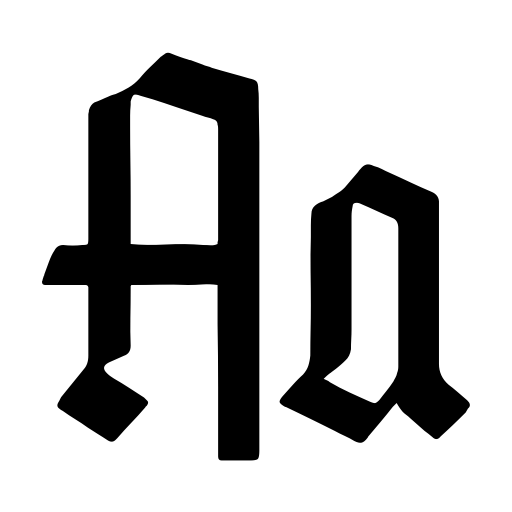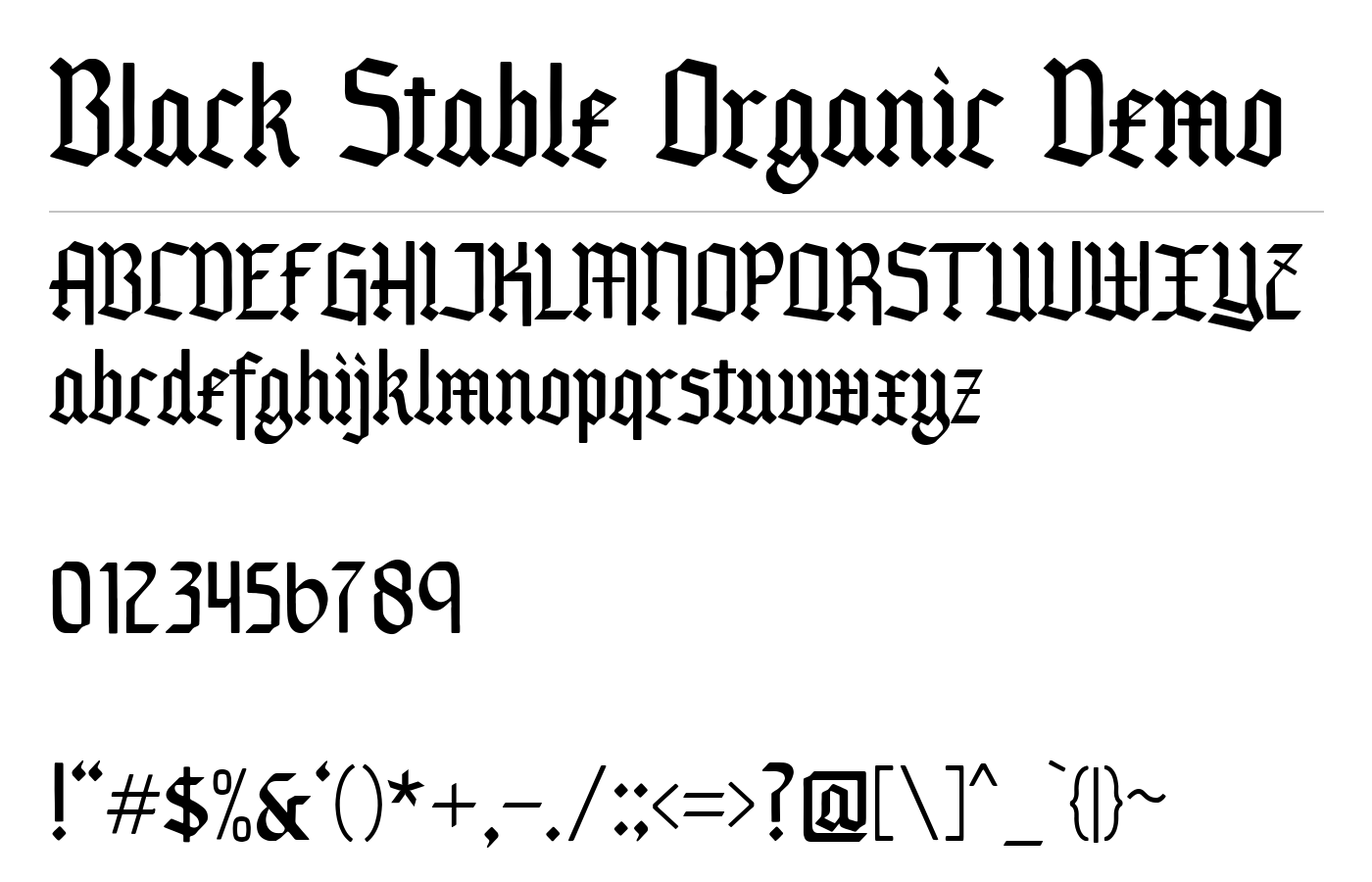
Black Stable Organic Demo is a bold, narrow blackletter-style font that blends traditional Gothic calligraphy with a modern, geometric touch. Its sharp, angular strokes and high contrast create a strong, structured appearance perfect for vintage-inspired branding, headlines, and logos that seek a historic yet contemporary vibe. This font stands out in editorial designs and packaging where a dramatic, authoritative feel is desired.
Black Stable Organic Demo Font
About Black Stable Organic Demo Font
| Font family | Black Stable Organic Demo Font |